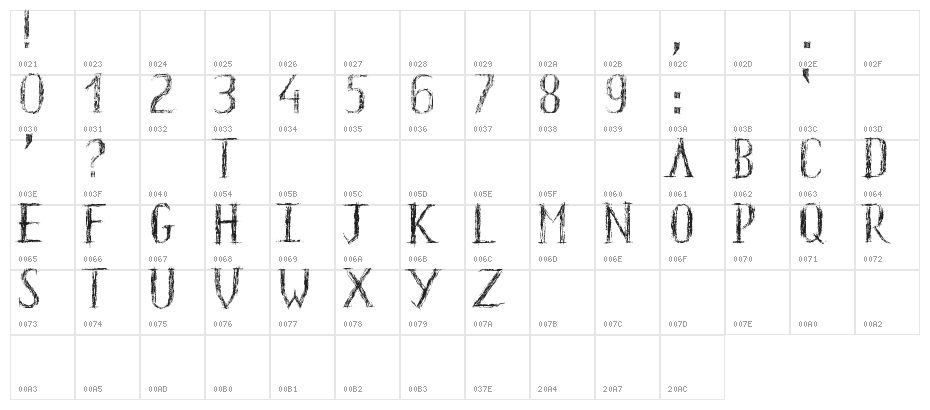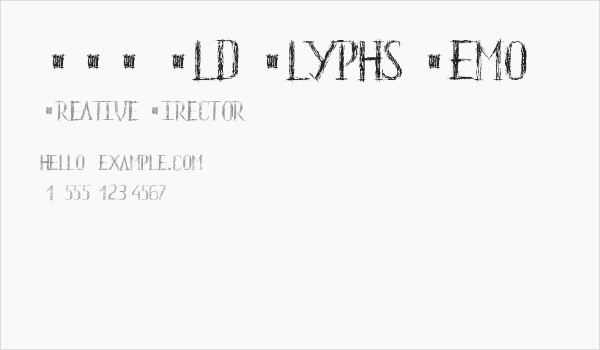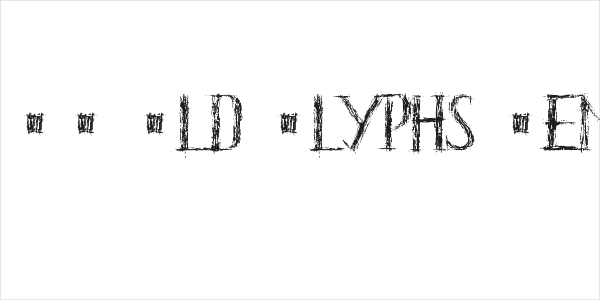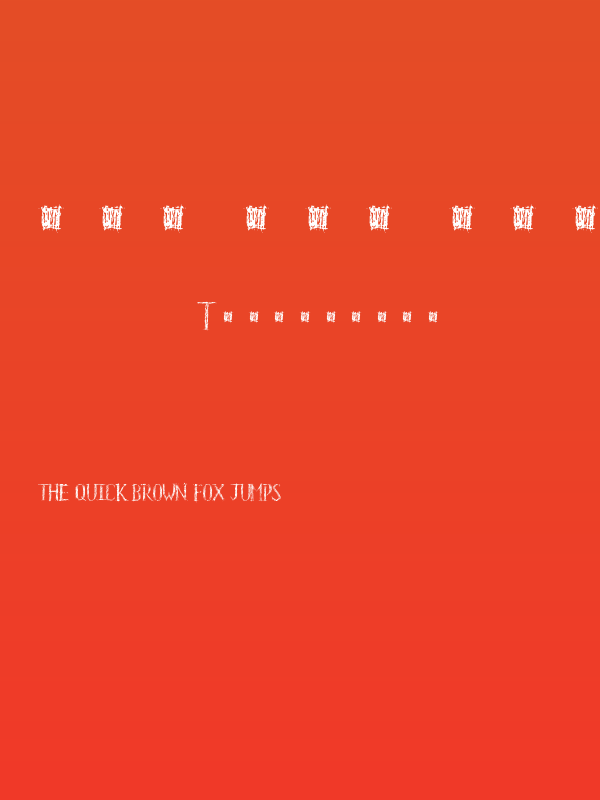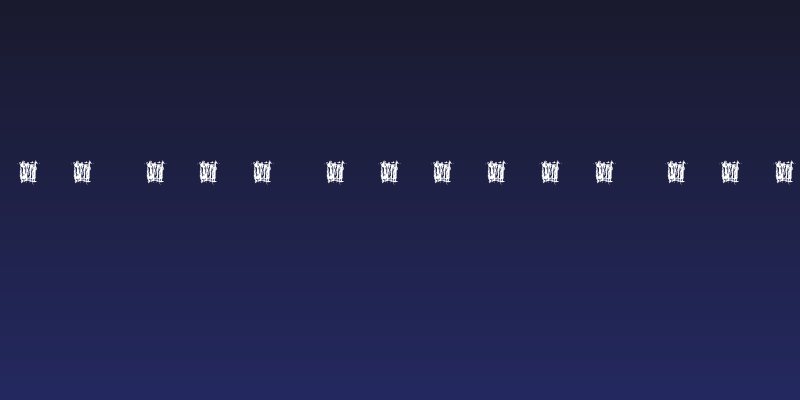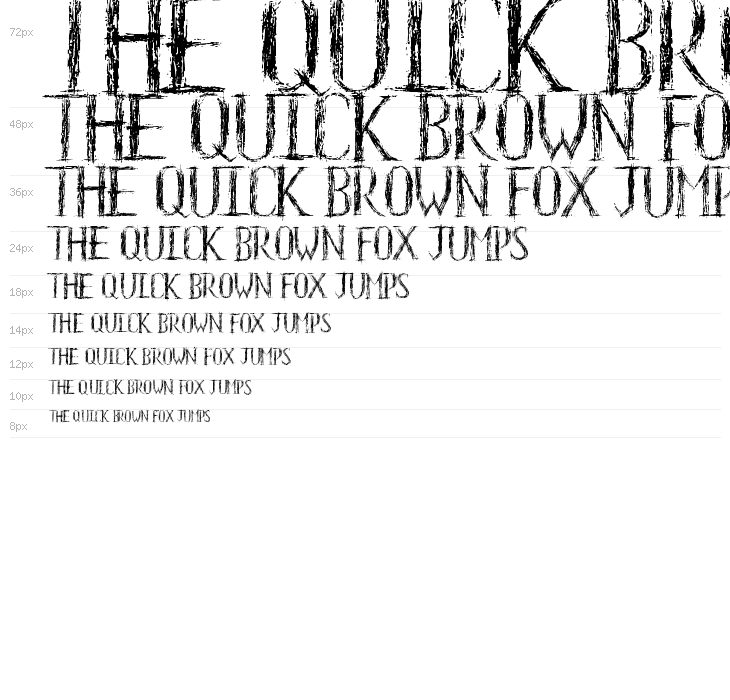
HKH Old Glyphs Demo Font
HKH Old Glyphs Demo Description
This font exhibits a rugged, textured appearance reminiscent of ancient carvings or weathered stone inscriptions. The characters are bold and slightly irregular, giving them a hand-crafted feel. The strokes are uneven, with a rough, distressed texture that adds a sense of age and history. The uppercase letters are prominent and commanding, while the numbers maintain the same rugged aesthetic. The font's unique style makes it stand out, evoking a sense of mystery and antiquity.
| Proposed Projects | Ideal for projects requiring a historical or mystical theme, such as book covers, movie posters, or themed event invitations. |